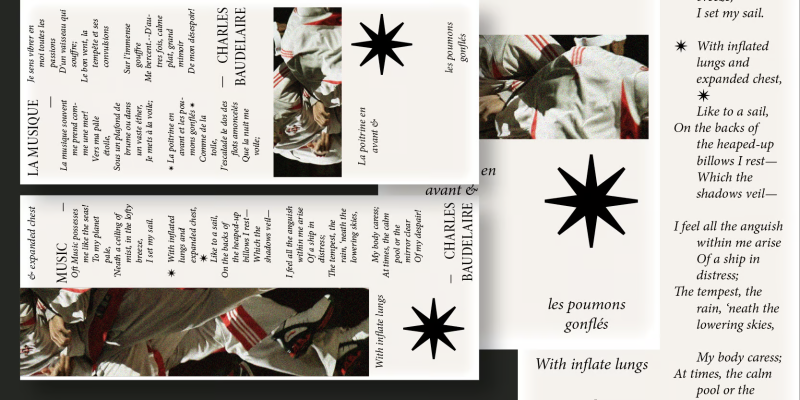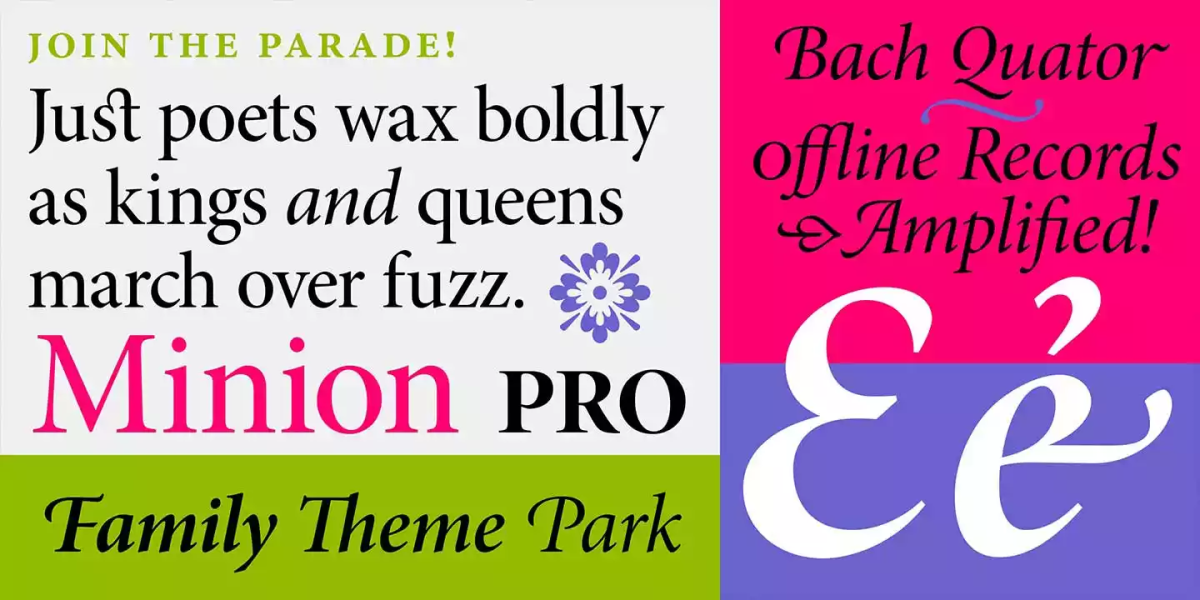
Minion Pro Font
Minion Pro is a serif typeface designed by Robert Slimbach, a very famous typographer and designer of typefaces, in 1990 for Adobe Systems. This stylish font takes its cue from the Renaissance typefaces of Claude Garamond and Robert Granjon, with touches of modernity.
The font “Minion” is known for its small size and versatility in various applications like body text in print and headlines on screens. It is a popular choice among designers, publishers, and typographers due to its legibility and classical appearance.
With balanced proportions, moderate contrast, and sturdy serifs, Minion Pro has an elegant and thoughtful appearance. Its letterforms show tiny calligraphic influence, and graceful curves and delicate brush strokes increase readability.
One of the characteristic features of Minion Pro is that its character set is extensive, and it has multiple weights, styles and glyph variations. Such versatility allows designers to work with the typeface to communicate notions of power and authority through its more dominant regular weight or a touch of sophisticated and elegant lightness with the italic style.
The inspiration for Slimbach’s design came from the late Renaissance period classic typefaces in the old serif style. The Renaissance period was noted for its elegant and attractive typefaces, which were also highly readable. Minion is derived from the traditional classification and naming of typeface sizes, a minion being a size between brevier and nonpareil. It approximates a modern 7-point lettering size.
The Minion design’s lowercase characters use old-style glyphs in keeping with its Baroque typeface roots. These are most noticeable in the lowercase “g” and “q”. Subtle but essential details allow the upper and lower case to match well and sit comfortably beside each other. In both cases, the letter “z” has the tell-tale heavy dropped serif and matching line thicknesses. The strokes of the upper and lower case “y”, with its italicized narrowing of the secondary stroke, reinforce the strength of the primary stroke. Interestingly, the “Z” character has a thick stroke in perpendicularity to the “Y”, and though it may look a little odd on close examination, within a body of text, it enhances readability by providing good differentiation between adjacent letters.
The overall appearance of the Minion design is very much related to the appearance of mass-produced publications of the late Renaissance. Still, an added touch of classic typography design is impossible with older, inaccurate print machinery. This new take on those old styles has produced a crisper outline. The Minion typeface family has been expertly crafted to retain excellent readability by creating a print clarity that even the best Renaissance typographers could not manage.
The sheer number of existing versions demonstrates the popularity of this font. Adobe has created over one hundred and forty-three variations, ranging from basic styles to extended sweeping serif styles and even a set of ornamental characters that match the Minion design characteristics. In keeping with the spirit of healthy competition, many renowned types of foundries have produced some version of the Minion family at some point in the last 30 years.
Slimbach’s original Minion designs were updated with Cyrillic editions in 1992, and OpenType® versions were released in 2000.
The Minion design is an ideal typeface where high legibility levels are required. This makes it a perfect font for newspapers trying to fit as much copy onto every square inch of paper as possible. Its clarity helps make it readable for both young and old.
The Minion font family is particularly suitable for situations where instructions must be followed precisely, such as in critical applications where words cannot be misinterpreted. For instance, an air traffic control operator manual may benefit from using the Minion typefaces. The Minion font family is also a great choice for packaging and newsletters. Additionally, for those publishing mathematical formulaic content, incorporating the Minion math set may significantly enhance the usefulness of the Minion design.
Several universities, including Wake Forest, Brown, Purdue, and Trinity College Dublin, use Minion as their title and body text typeface. Wolfram Research’s Mathematica software logo uses this typeface, and John Benjamin’s Publishing Company uses Minion in its books’ body text.
Minion Pro is a typeface designed by Robert Slimbach for Adobe Systems in 1990. It is justly famous for its classical grace, multifunctionality, and ease of reading.
Minion Pro Roman provides several weights, including Regular, Italic, Semibold, Bold, and Bold Italic, that allow different typographic expressions. Besides, it has small caps, old-style numbers, ligatures, and other typographic elements.
Though Minion Pro is a genuinely original font, some other serif typefaces, such as Garamond, Adobe Caslon, and Georgia, share some of its features.
Minion Pro Font is a Serif Fonts font that brings a professional and versatile look to your projects. Minion Pro is a serif typeface designed by Robert Slimbach, a very famous typographer and designer of typefaces, in 1990 for Adobe Systems.